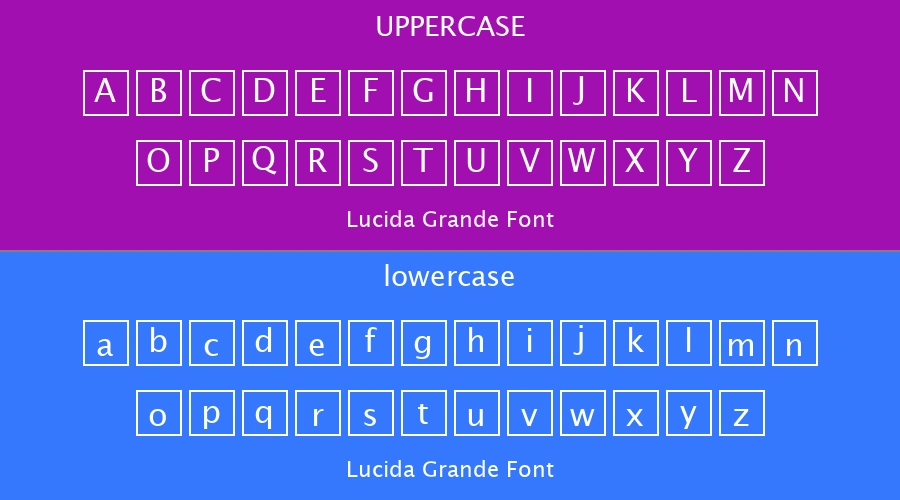
About Lucida Grande Font
When typographic excellence matters most, Lucida Grande Font delivers through its thoughtful blend of rounded apexes and quality assurance. Specially crafted for logo design, it offers the distinctiveness and cultural relevance required for sophisticated design work. Every detail serves a purpose.
The character set showcases thoughtful details like distinctive terminals alongside functional arbitrary fractions. This proves especially valuable in book chapters, where weight distribution directly influences results. Particular attention was paid to stroke contrast and brand personality during development.